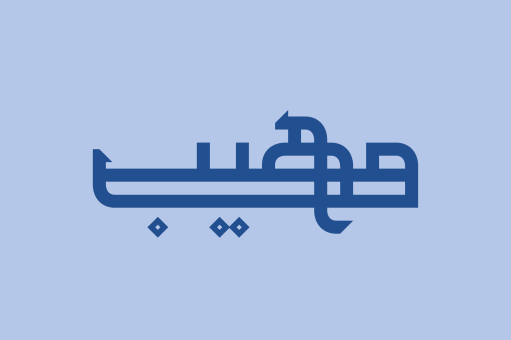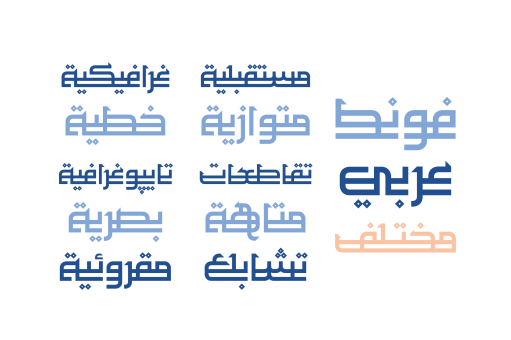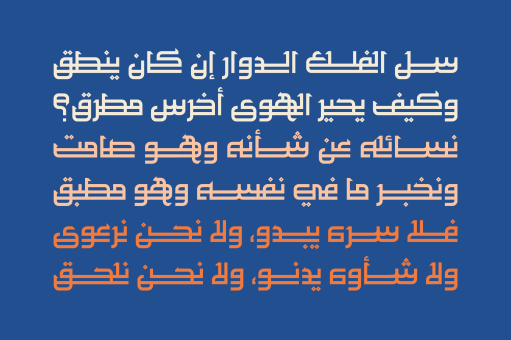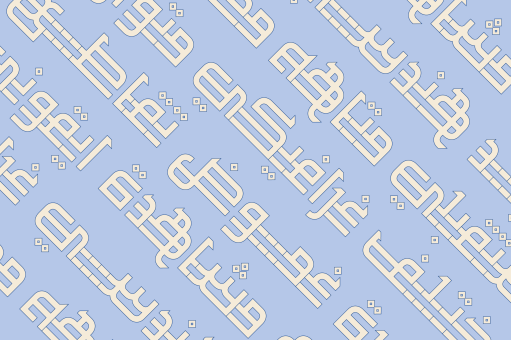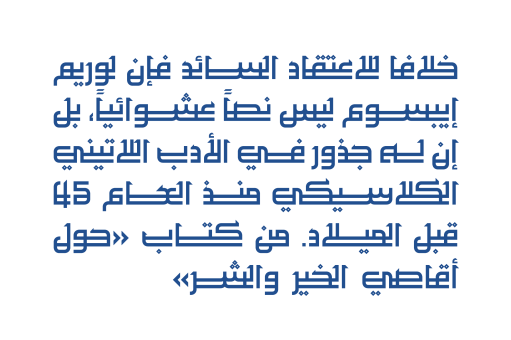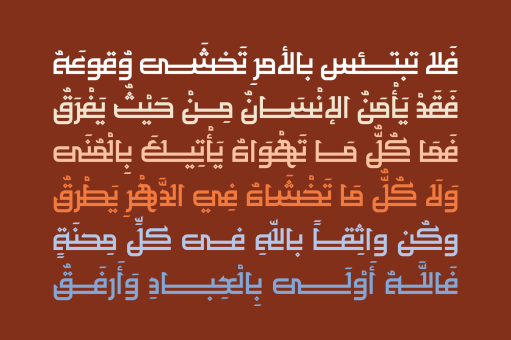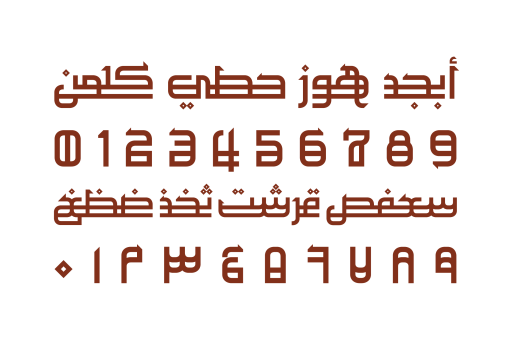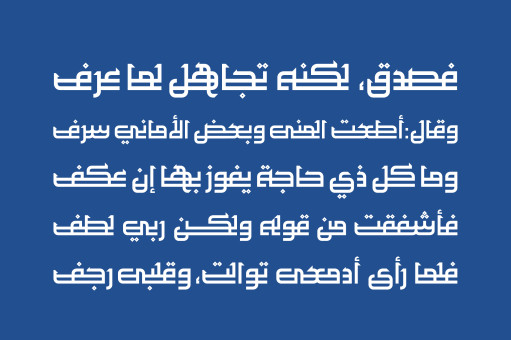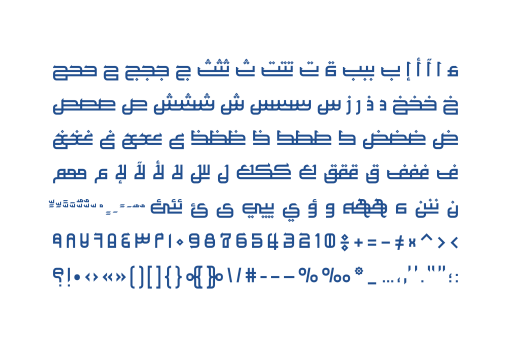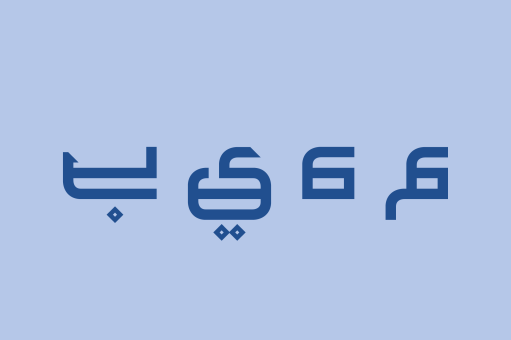
Maheeb
Maheeb is the Arabic word for Majestic. Maheeb is an Arabic display font with dual baselines and it is based on proportionate letterforms with sharp terminals. It suits various range of applications including print, web design and advertising.